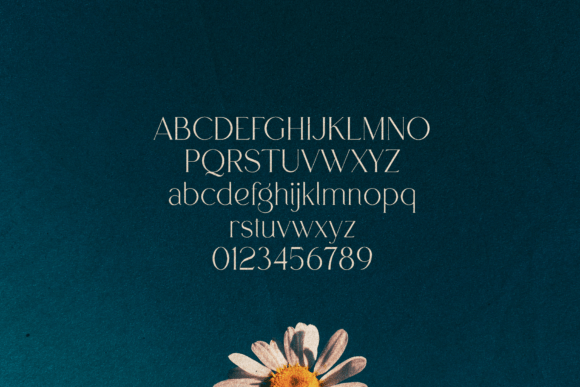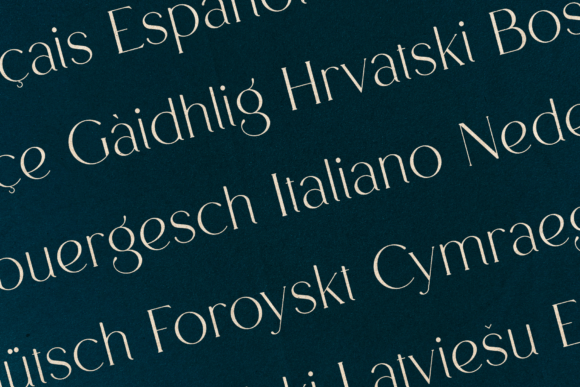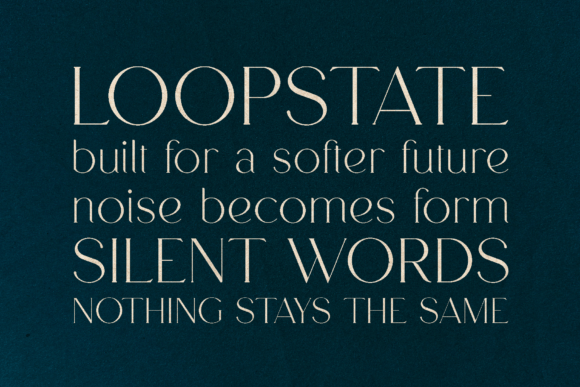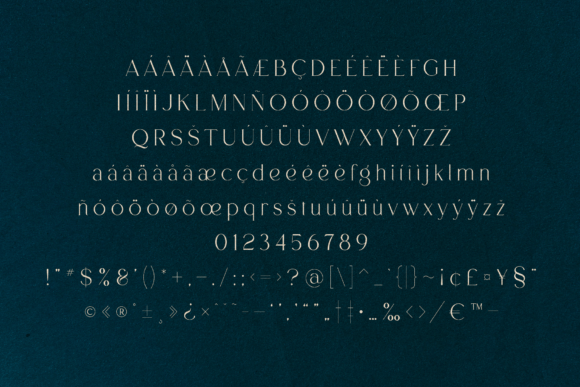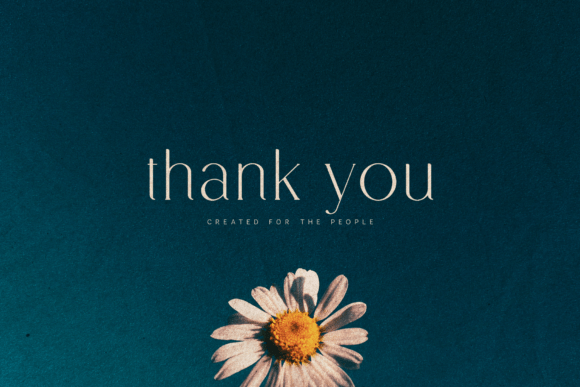
Discovering the Perfect Balance: Unveiling the ALPAS Font
Have you ever stumbled upon a font that effortlessly elevates your design to the next level? As a designer, I’ve had my fair share of font discoveries, but one that truly stands out is the Alpas Font. Its understated elegance and refined sophistication have a way of instantly elevating any project.
The Alpas Font is a masterfully crafted serif typeface, designed to convey authority through subtlety. With its slender strokes, generous spacing, and delicate curves, it embodies the essence of minimalist luxury. Whether you’re designing a high-end real estate branding, a premium lifestyle magazine, or a clean website header, the Alpas Font is sure to leave a lasting impression. Its value lies in its ability to create a sense of airy sophistication, making it a must-have for designers who crave a unique visual aesthetic.
By incorporating the Alpas Font into your design, you’ll instantly elevate your project to a “gallery-grade” level, perfect for making a lasting impression on your audience.
Alpas Font Key Features
- Font Family: Alpas is a sans-serif font family, designed to be highly legible and versatile.
- Character Set: The font family includes a wide range of characters, including Latin, Cyrillic, and Greek alphabets, as well as punctuation and symbols.
- Unique Characteristics: Alpas Font features a distinctive, modern design with clean lines and geometric shapes, making it ideal for use in digital products, branding, and advertising.
- Font Variations: The Alpas Font family includes multiple weight variations, including Light, Regular, Medium, Bold, and Black, allowing designers to choose the perfect weight for their project.
Alpas Font Review
As a designer, I recently had the chance to work with the Alpas font, and I must say it’s a mixed bag. Here are my thoughts.
- Unique aesthetic: Alpas has a distinctive look that sets it apart from other sans-serif fonts. Its curved lines and geometric shapes make it perfect for creating a bold, modern feel.
- Legibility: Despite its bold appearance, Alpas is surprisingly readable, even at smaller font sizes.
- Style versatility: Whether you’re designing a logo, heading, or body text, Alpas can adapt to suit your needs.
- Lack of versatility in weight: Alpas is available in a limited number of weights, which can make it difficult to achieve the perfect balance between boldness and legibility.
- Not ideal for large blocks of text: Alpas is best suited for headings and short paragraphs, as its bold appearance can become overwhelming when used extensively.
While Alpas has its limitations, its unique aesthetic and legibility make it a great addition to any designer’s toolkit. I’d recommend it for projects that require a bold, modern feel, but be mindful of its limitations when working with large blocks of text.
Use Alpas Font to create modern and elegant designs.
Pair it with bold colors and clean graphics to create a striking visual effect.
Experiment with different font sizes and styles to add depth and interest to your design.
Use Alpas Font for:
Headings and titles in marketing materials and presentations.
Body text in digital magazines and online publications.
Logos and branding materials for a modern and sophisticated look.